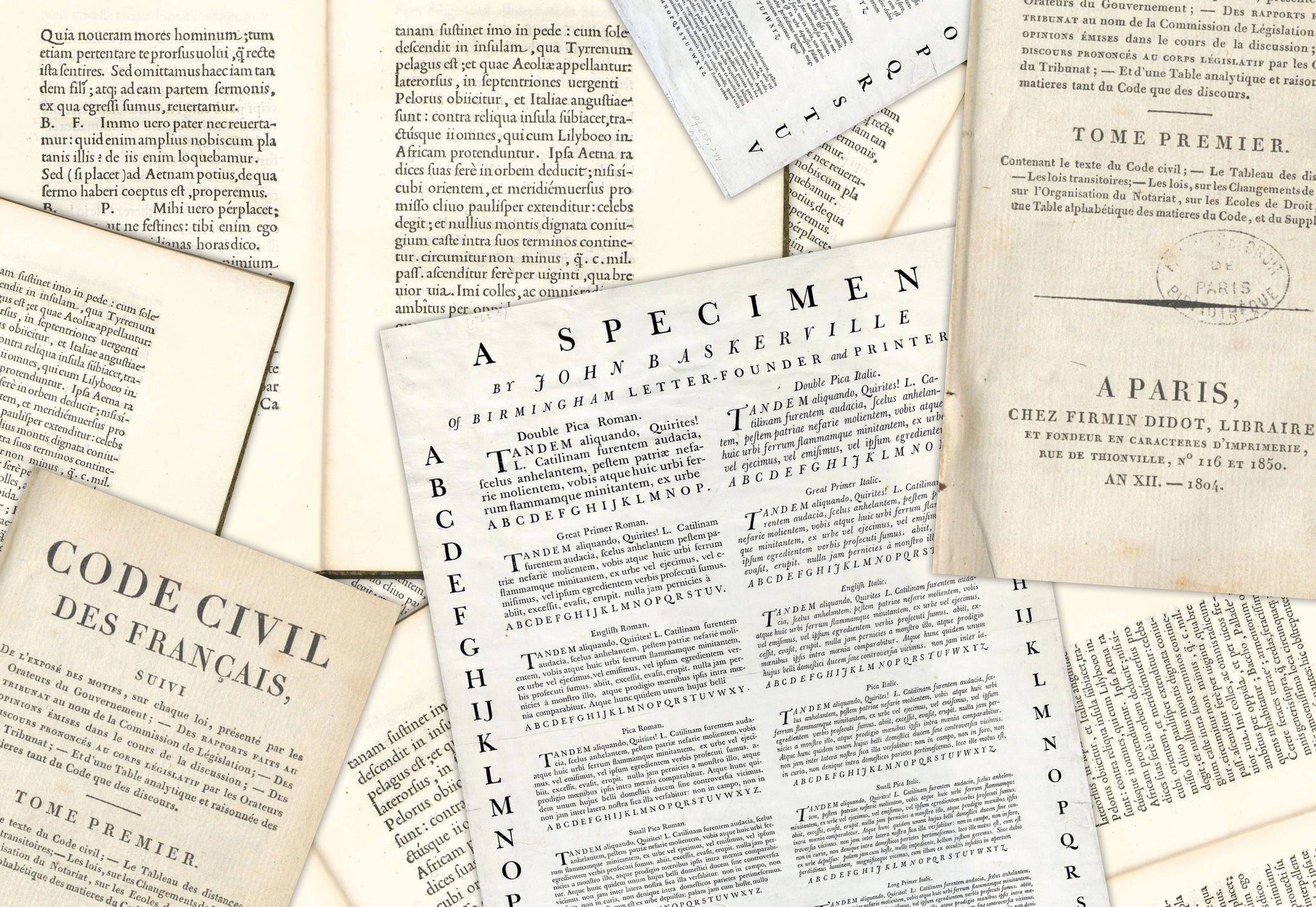
Generally speaking, Oldstyle type isn’t something we see super often these days, despite the fact that it used to be rather commonplace.
It’s a term you may very well have seen in your OpenType drop-down, or in the nitty-gritty information of a typeface design. You’ll also see it maybe without realising. After all, Minion Pro, inDesign’s default font, is an Oldstyle typeface. It’s a bit of a shame, we’d argue, that Oldstyle has been so shoved to the side, considering that its history starts at, well, the beginning of typographic history (as we recognise type today). Oldstyle, which unsurprisingly wasn’t referred to as such at the time, emerged in the late 15th and 16th centuries as the first successful attempts to translate handwritten forms into easily reproducible printed type. Humanist handwriting style, which is your classic structured but flowing calligraphic form of lettering, was favoured by the early printers of Italy – and the punchcutters in France – who wanted to take those organic, familiar forms and embed them into metal. These humanist shapes, combined with Roman capital letters and the newly standardised lowercase (we hope you remember our other newsletter looking into that!), created an entirely new style, which would shape how we read for a long, long time.
It is this basis in humanist script that sets Oldstyle apart, built on a foundation that has a distinctly human quality, making it familiar to us (and those at the time of its design). The traces of handwritten forms are still seen, such as the swell and gentle taper of strokes and the overall relative modesty of the contrast between thick and thin lines. The more rounded Oldstyle characters also hint at the angles of a broad-nib pen with their diagonal emphasis. What these features reveal, especially in retrospect, is how exciting a solution Oldstyle was when it was created, having solved a long-standing issue that earlier scripts and blackletter styles had struggled with… sustaining comfortable reading over long passages of text.
Oldstyle establishes clear word shapes through ascenders and descenders, and – by maintaining a consistent rhythm across lines – makes for more intuitive continuous reading. Previously, Blackletter and calligraphic text were far denser and more intimidating. Oldstyle entered as a far more accessible alternative and, as typography continued to develop over the centuries that followed, it became the starting point for entirely new styles.
Transitional typefaces, also known as Realist typefaces, materialised in the mid-18th Century as a bridge between Oldstyle and Modern typefaces. Baskerville is a classic example. They pushed typographic contrast further and straightened the underlying tension of forms, while later Didone type (another genre of serif) exaggerated these qualities into something more dramatic, yet equally refined. Didone quickly became a standard of printing in the mid-18th Century onwards, yet even as these newer forms came to be, Oldstyle never disappeared. Instead, it stood as a perpetual reference point against which other styles were measured.
For type designers today, Oldstyle continues to play a central role in design, particularly wherever readability and tone are central to its design. In certain areas, like your average novel, it is still a go-to, where long-form reading demands a typeface that’s accessible, familiar and doesn’t draw undue attention to itself. You can still see it in branding and cultural projects too, where its history lends a sense of credibility and warmth, but it’s perhaps not as common in more mainstream industries. Its style seems to have found a space where it is expected – museums, books, galleries, etc. – instead of being the basis for typographic execution. Maybe that’s for the best? Unlike more austere or highly stylised typefaces, Oldstyle communicates more of an authoritative tone, something that’s especially useful for institutions that want to feel established but approachable.
It’s equally appealing to those sorts of spaces due to its adaptability. In print, Oldstyle is reliable across a range of sizes and formats, maintaining clarity without sacrificing character. On screen, many contemporary serif designs borrow their proportions and principles, translating their legibility into digital environments. It’s fair to say that what keeps Oldstyle relevant is not just its history, but the logic behind its design. It can’t help but feel human, even through its retrograde features, and that will never not be appealing. Everything is tech, and AI, and digital, and fast. Maybe something that returns to our intrinsic warmth as squishy, imperfect people could be a welcome return?